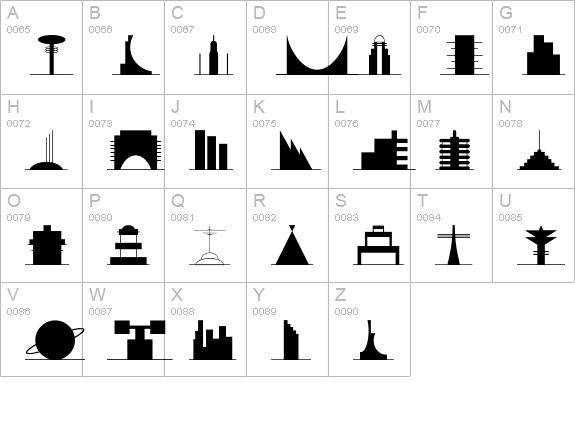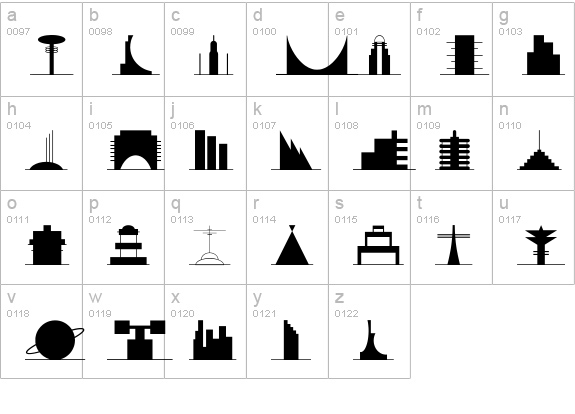
21st Century Skyline JL Font Details
21st Century Skyline JL font is a sleek and modern typeface that exudes sophistication and elegance. With its clean lines and futuristic design, this font is perfect for creating eye-catching headlines, logos, and branding materials. The unique geometric shapes and sharp angles give 21st Century Skyline JL font a contemporary feel that is sure to make your designs stand out. What's even better is that this font is available for free download at FontsMarket.com. Whether you're a designer looking to add a modern touch to your projects or a business owner in need of a stylish font for your marketing materials, 21st Century Skyline JL font is the perfect choice. Download it today and elevate your designs to new heights with this stunning typeface.